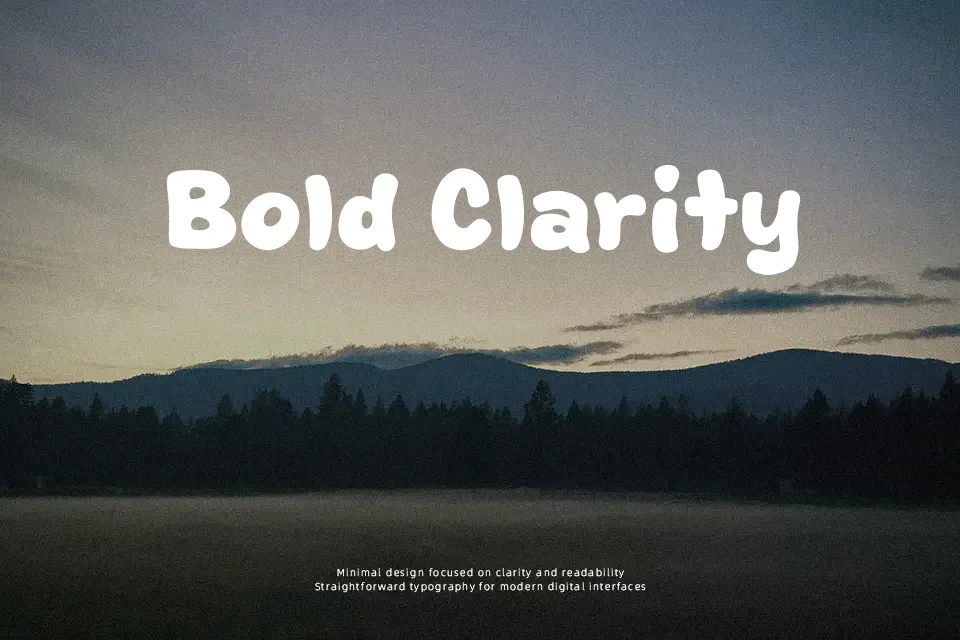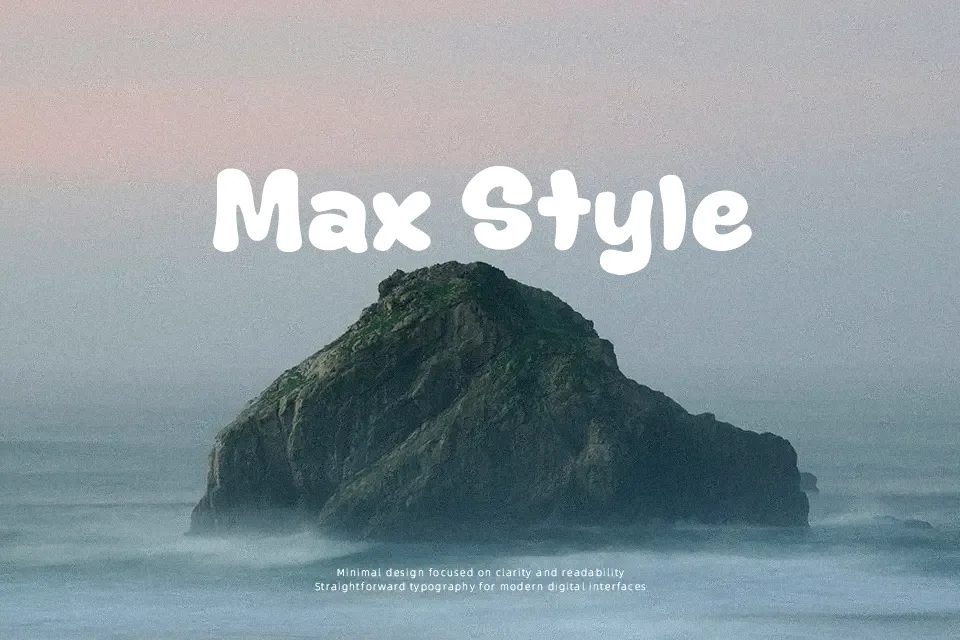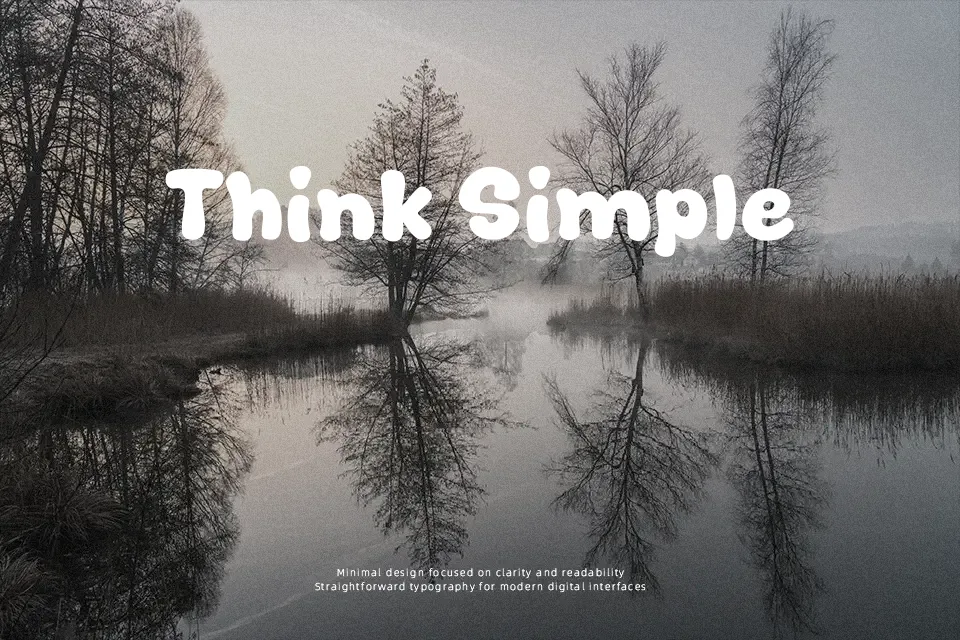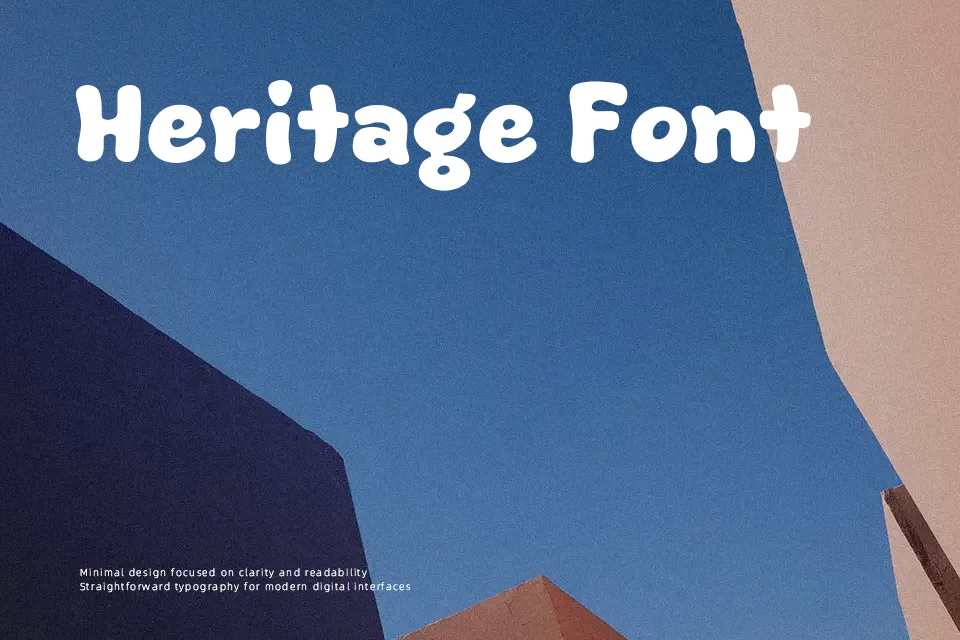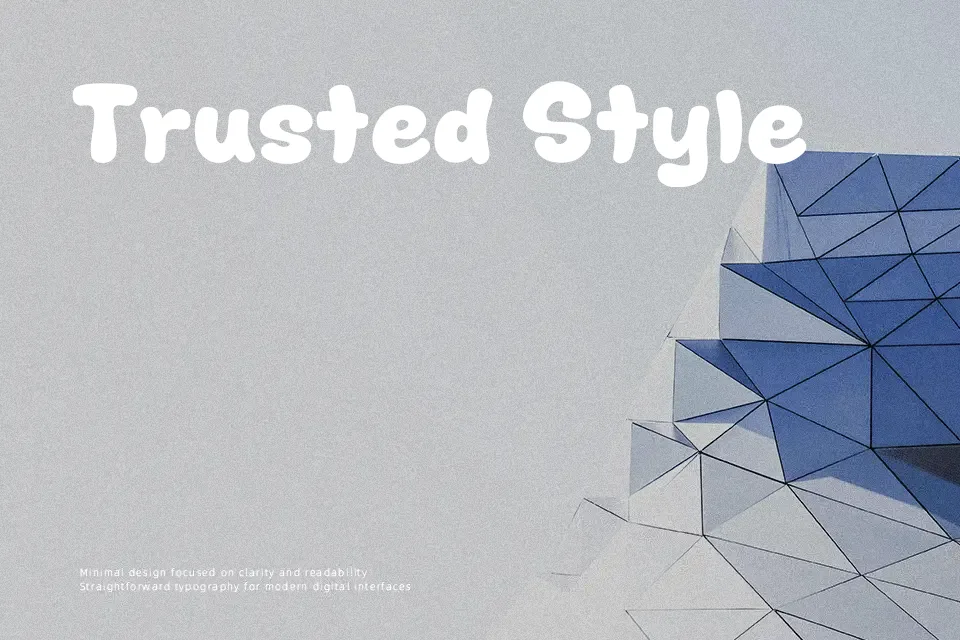
Realbun Font
Realbun Font brings a distinctly bouncy and cheerful character to creative typography. The letterforms are built with heavy, rounded strokes that eliminate sharp angles, creating a highly approachable and soft visual rhythm. Its generous proportions and chunky weight make the typeface incredibly visible in large headers and playful logotypes. The cohesive spacing helps maintain clarity in larger headlines without feeling overly rigid or mechanical. However, these dense forms reduce comfort during extended reading, making it less suitable for long paragraphs or tiny interface elements. Overall, the design perfectly captures a lighthearted, bubbly energy that stands out beautifully in casual or youth-oriented layouts where immediate visual impact is prioritized.
childrens book covers
casual mobile game interfaces
candy packaging design
youth apparel graphics
Perfect for gaming, kids, and logo, with a bold and cartoon style.